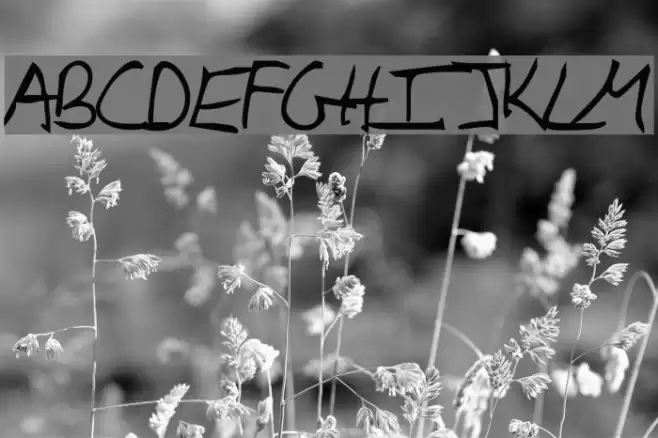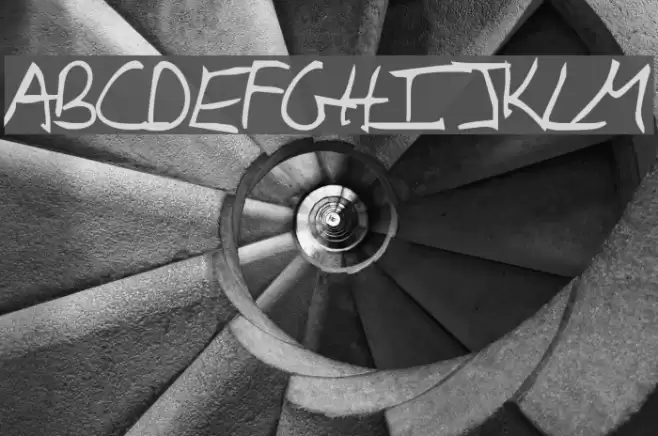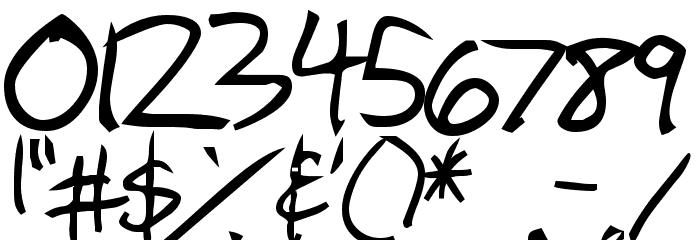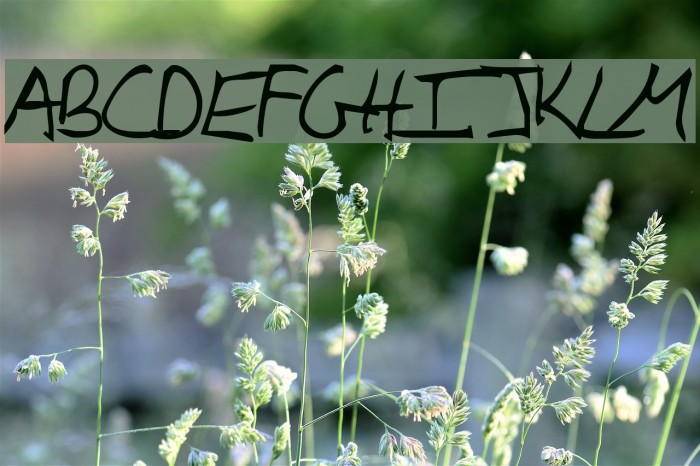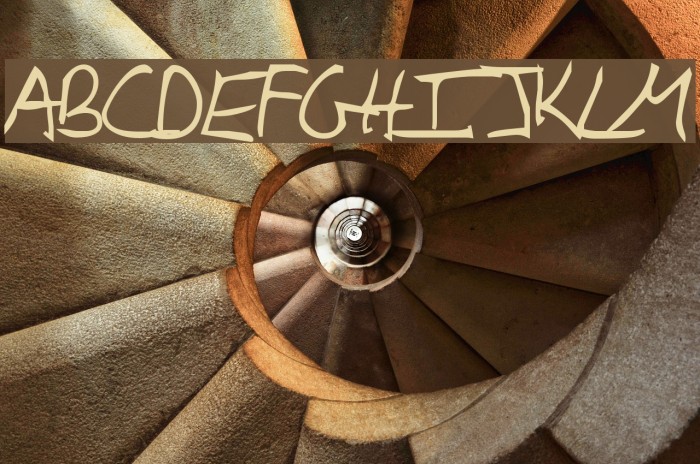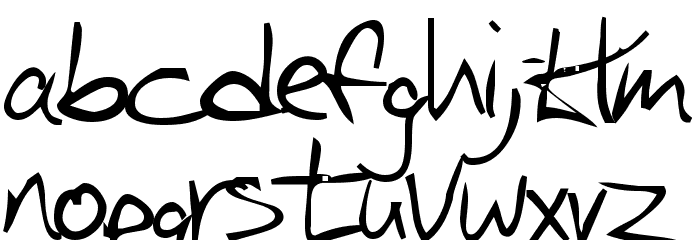
Iglook Font
Iglook Description
This font exhibits a dynamic and energetic handwritten style, characterized by its bold and expressive strokes. The uppercase letters are slightly slanted, giving a sense of movement and fluidity, while the lowercase letters maintain a consistent flow. The numbers are bold and prominent, ensuring readability. Special characters are creatively designed, adding a playful touch to the overall appearance. The font's irregularities and varying line thickness contribute to its informal and artistic vibe, making it suitable for projects that require a personal and creative touch.
A bold, energetic handwritten font with expressive strokes and playful character design from Quirky fonts.
- Proposed Projects: Ideal for creative projects such as greeting cards, posters, artistic branding, and social media graphics.
- Use Case: Logos, Headlines, Artistic projects